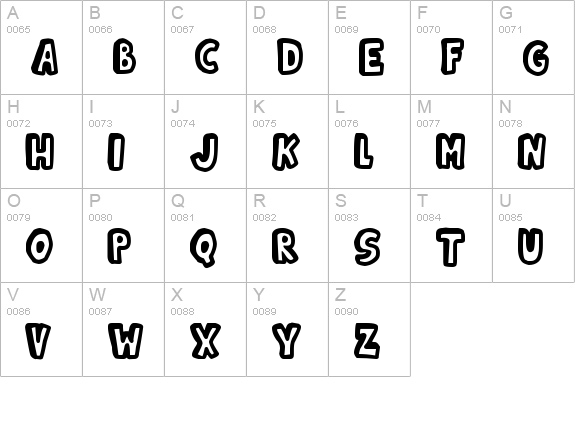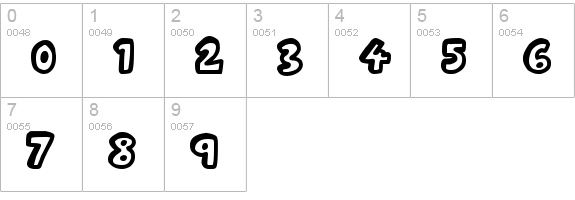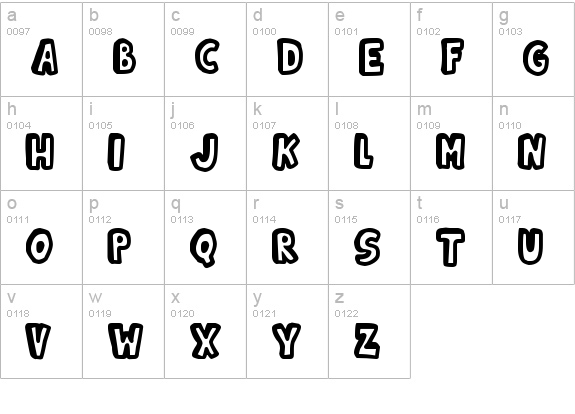
The Kinda 3D font is a captivating and dynamic typeface that adds depth and dimension to any design project. With its unique three-dimensional appearance, this font is sure to make a statement and grab the attention of viewers. Perfect for creating eye-catching headlines, titles, and branding materials, Kinda 3D brings a modern and stylish twist to your designs.